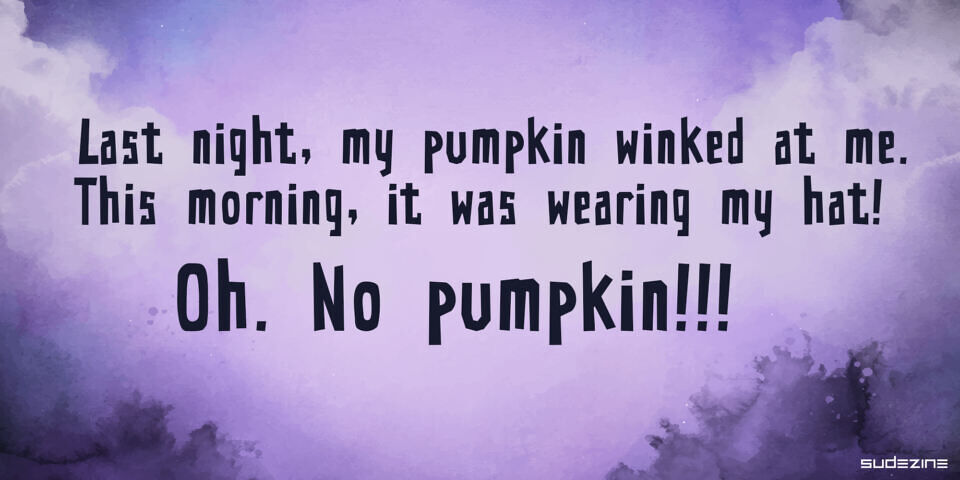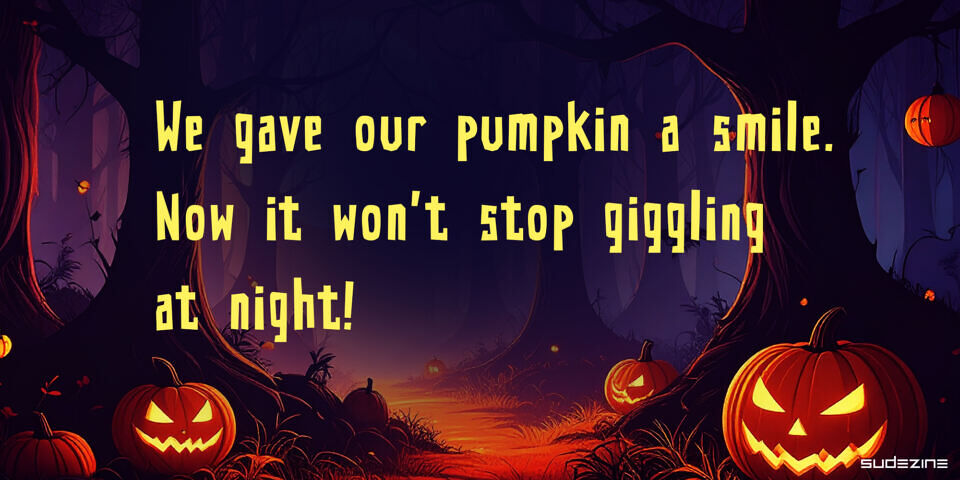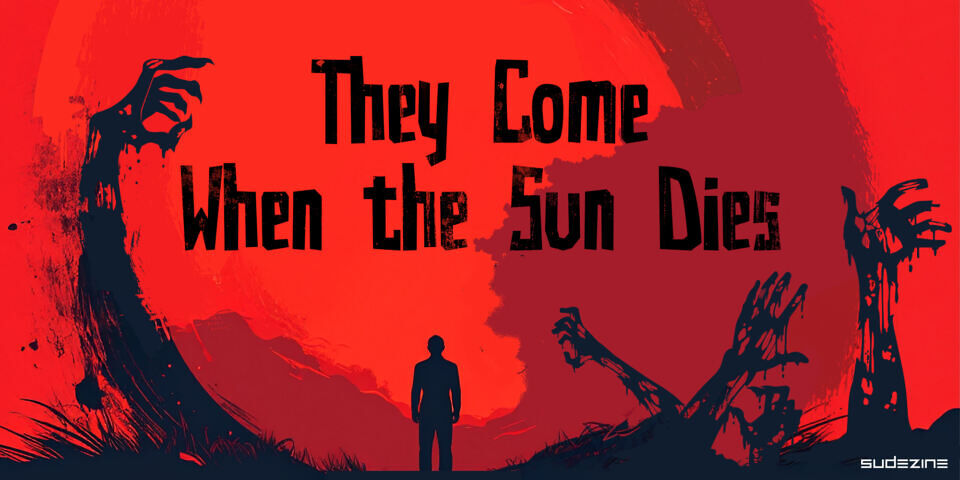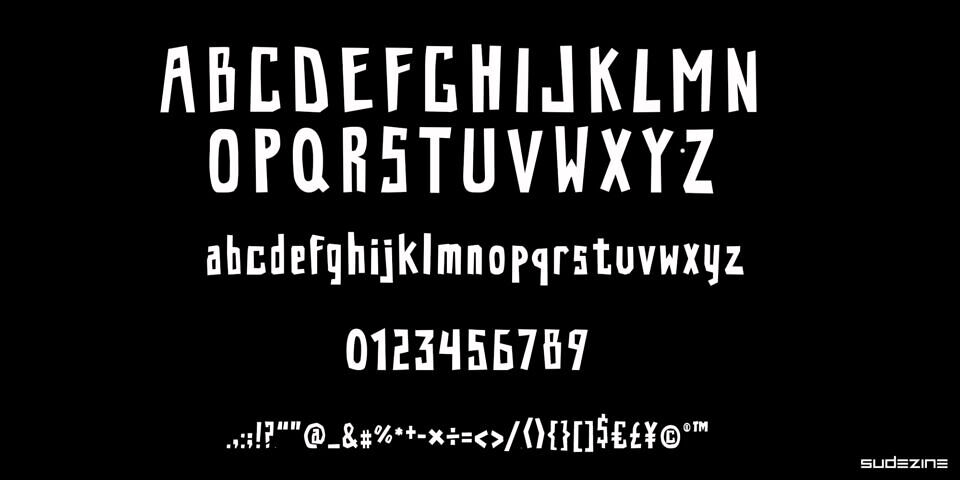
SD Grim Whimsy is a whimsical typeface inspired by the eerie charm of horror films. Ideal for logos, quotes, invitations, greeting cards, journals, posters, apparel, and more. This font brings a playful twist to your spooky-themed designs.